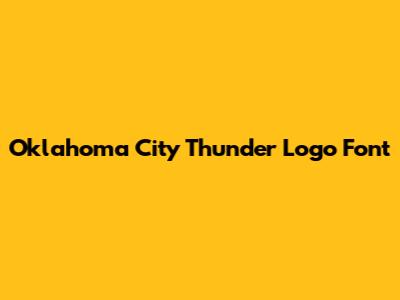
Oklahoma City Thunder Logo Font: A Deep Dive
Let's dive deep into the fascinating world of sports team branding, specifically focusing on the Oklahoma City Thunder logo font. For any sports franchise, the logo and its accompanying typography are crucial elements that embody the team's identity, values, and aspirations. The font used in a logo isn't just a random selection; it's a carefully considered design choice that aims to resonate with fans, convey the team's spirit, and create a lasting impression. In the case of the Oklahoma City Thunder, understanding their logo font helps us appreciate the nuances of their brand and how it connects with their audience. The visual identity of a sports team is more than just aesthetics; it's about creating a cohesive and recognizable brand that stands out in a competitive market. The font choice is a critical piece of this puzzle, influencing how fans perceive the team's personality and values. Think about some of the most iconic sports logos – the New York Yankees' classic serif font, the Los Angeles Lakers' bold, stylized lettering, or the Chicago Bulls' dynamic and aggressive typography. Each of these fonts contributes significantly to the overall brand image, evoking feelings of tradition, excellence, and power. When a team chooses a font, they're not just picking letters; they're selecting a visual voice that will represent them across various platforms, from jerseys and merchandise to marketing campaigns and digital media. The font needs to be versatile enough to work in different contexts, legible at various sizes, and consistent with the team's overall brand messaging. It's a delicate balance of aesthetics and functionality, requiring careful consideration and attention to detail. Furthermore, the font must align with the team's history, location, and fan base. A font that feels modern and edgy might be perfect for a new, up-and-coming team, while a more classic and traditional font might be better suited for a team with a long and storied history. The Oklahoma City Thunder, as a relatively young franchise, have the opportunity to create a visual identity that reflects their unique character and aspirations. By examining their logo font, we can gain insights into their branding strategy and how they aim to connect with their fans. So, let's explore the specific font used by the Thunder and understand the design choices that make their logo so recognizable.
Identifying the Oklahoma City Thunder Logo Font
Figuring out the exact font used in the Oklahoma City Thunder logo can be a bit of a detective job, guys. Officially, the Thunder use a custom font that's not available for public download. This is a pretty common practice among professional sports teams and major corporations. Creating a unique, proprietary font helps them maintain brand control and prevents others from easily replicating their logo. However, similar fonts are often used as a base or inspiration, and there are some close alternatives you can find. Identifying the font involves looking closely at the letterforms, their unique characteristics, and comparing them to various font libraries. This process often involves using font identification tools and websites that can analyze an image of the logo and suggest potential matches. While these tools aren't always 100% accurate, they can provide a good starting point for your research. One thing to keep in mind is that the Thunder's logo font might have been modified or customized in specific ways to further differentiate it from commercially available fonts. This could involve adjusting the letter spacing, changing the shapes of certain characters, or adding unique design elements. These subtle modifications can make it even more challenging to pinpoint the exact font used. Another approach is to consult with graphic designers and typography experts who have experience in brand identity and logo design. These professionals often have a keen eye for detail and a deep knowledge of font families, making them valuable resources for identifying similar fonts or even recreating the logo font from scratch. Keep in mind that even if you find a very close match, it might not be an exact replica. The Thunder's design team likely spent considerable time and effort crafting a font that perfectly embodies their brand, so it's unlikely that a readily available font will capture all the nuances of their official logo. Despite these challenges, it's still possible to gain a good understanding of the font's characteristics and find alternatives that capture a similar feel. By carefully analyzing the letterforms, considering the team's brand identity, and exploring various font options, you can get a sense of the design choices that went into creating the Oklahoma City Thunder logo. So, while you might not be able to download the exact font, you can certainly appreciate the artistry and thought that went into its creation.
Close Alternatives and Similar Fonts
Even though the Oklahoma City Thunder logo font is custom, there are some great alternatives out there that capture a similar vibe. When we talk about alternatives, we're looking for fonts that share key characteristics like weight, style (e.g., sans-serif or serif), and overall visual impact. A popular category to explore is the sans-serif family, known for its clean, modern, and legible appearance. Fonts like Helvetica, Arial, and Futura are classic examples of sans-serif fonts, and they often serve as a starting point for identifying similar styles. However, the Thunder's logo has a specific character, so we need to dig a bit deeper. One solid option is a font called Trade Gothic. It has a similar weight and structure to the Thunder's font, with a slightly condensed appearance that gives it a strong, assertive feel. Trade Gothic is widely used in branding and advertising, making it a versatile choice for various design projects. Another font family to consider is DIN Condensed. DIN fonts are known for their industrial, functional aesthetic, and the condensed versions offer a similar narrowness to the Thunder's logo font. DIN Condensed is often used in signage and information graphics, lending a sense of clarity and efficiency. If you're looking for something a bit more unique, you might explore fonts like Bebas Neue. Bebas Neue is a popular free font that features tall, narrow letterforms and a modern, streamlined design. While it might not be an exact match, it captures a similar sense of height and boldness. Remember, the goal isn't necessarily to find an identical font, but rather to find one that evokes a similar feeling and conveys the same sense of strength and dynamism. You can also experiment with modifying existing fonts to better match the Thunder's logo. This might involve adjusting the letter spacing, changing the stroke weights, or adding subtle design elements. Font editing software like Adobe Illustrator or FontLab can be useful for making these kinds of customizations. Ultimately, the best alternative will depend on your specific needs and the context in which you're using the font. Consider the overall design of your project and how the font will interact with other visual elements. By carefully exploring different options and experimenting with customizations, you can find a font that effectively captures the spirit of the Oklahoma City Thunder logo.
The Importance of Font Choice in Sports Branding
In sports branding, the font choice is super important, playing a massive role in how fans perceive a team. Think of it as the team's visual voice, communicating values, history, and aspirations without saying a word. The font used in a team's logo, jerseys, and marketing materials creates an immediate impression, shaping public opinion and fostering brand recognition. A well-chosen font can evoke feelings of tradition, power, excitement, or sophistication, aligning with the team's overall identity and resonating with its fan base. For example, a classic serif font might convey a sense of history and tradition, while a bold, modern sans-serif font might project an image of innovation and dynamism. The font's weight, style, and letterforms all contribute to its overall message, influencing how fans connect with the team. Beyond aesthetics, font choice also affects legibility and readability. A font that looks great in a logo might not be suitable for use on jerseys or in smaller print sizes. The font needs to be versatile enough to work across various applications, ensuring that the team's brand remains consistent and recognizable. Consider the impact of font choice on merchandise sales. Fans are more likely to purchase apparel and accessories featuring a visually appealing and legible font. The font becomes an integral part of the team's visual identity, contributing to its overall brand appeal and driving revenue. Furthermore, font choice plays a crucial role in differentiating a team from its competitors. In a crowded sports market, a unique and memorable font can help a team stand out and establish a distinct brand identity. The font becomes a visual shorthand for the team, allowing fans to quickly and easily identify their favorite franchise. The Oklahoma City Thunder, like all professional sports teams, understand the importance of font choice in building a strong and recognizable brand. Their logo font is carefully crafted to reflect their team's values, appeal to their fan base, and stand out in the competitive world of professional sports. By understanding the nuances of their font choice, we can gain a deeper appreciation for their branding strategy and how it contributes to their overall success. So, next time you see the Thunder's logo, take a moment to consider the font and how it shapes your perception of the team. It's a small detail, but it plays a significant role in creating a lasting impression.
How the Thunder's Font Reflects Their Brand
The Oklahoma City Thunder's font isn't just a random selection; it's a deliberate choice that reflects their brand identity. The font embodies key aspects of the team's image, communicating their values, personality, and aspirations to fans and the wider world. When analyzing the Thunder's font, several characteristics stand out. It's modern, bold, and assertive, conveying a sense of strength, dynamism, and forward momentum. These qualities align with the team's identity as a relatively young and ambitious franchise, eager to make its mark in the NBA. The font's clean lines and sans-serif design contribute to its contemporary feel, reflecting the Thunder's commitment to innovation and progress. It avoids traditional or overly ornate letterforms, opting for a streamlined and efficient aesthetic. This reflects the team's focus on performance, teamwork, and a no-nonsense approach to the game. The font's weight and spacing also play a role in its overall impact. The letters are relatively thick and closely spaced, creating a sense of solidity and power. This reinforces the team's image as a formidable competitor, capable of dominating on the court. The font's legibility is another important consideration. It's designed to be easily readable at various sizes, ensuring that the team's brand remains consistent across different platforms, from jerseys and merchandise to digital media and advertising. This is crucial for maintaining brand recognition and reinforcing the Thunder's visual identity. Furthermore, the font's uniqueness helps the Thunder stand out in a crowded sports market. While it shares some similarities with other sans-serif fonts, it has subtle design elements that make it distinct and memorable. This helps the team establish a strong brand identity and differentiate itself from its competitors. The choice of font also reflects the Thunder's connection to Oklahoma City and its surrounding community. The font's modern and dynamic aesthetic aligns with the city's growing reputation as a vibrant and forward-thinking metropolis. It conveys a sense of pride and optimism, reflecting the spirit of the team's fan base. Overall, the Oklahoma City Thunder's font is a carefully considered design choice that embodies the team's brand identity. It communicates their values, personality, and aspirations, helping them connect with fans and establish a strong presence in the NBA. By understanding the nuances of their font, we can gain a deeper appreciation for their branding strategy and how it contributes to their overall success.